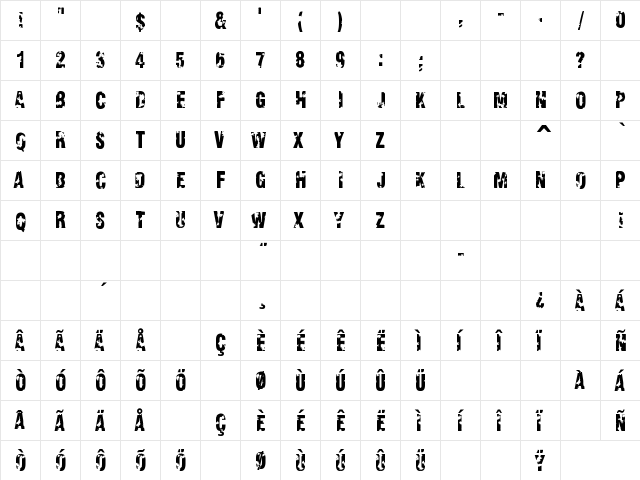
Viva Allende Regular
Design Context for Viva Allende Typeface
Viva Allende is a composed and adaptable typeface that performs quietly and consistently across a wide range of design contexts.